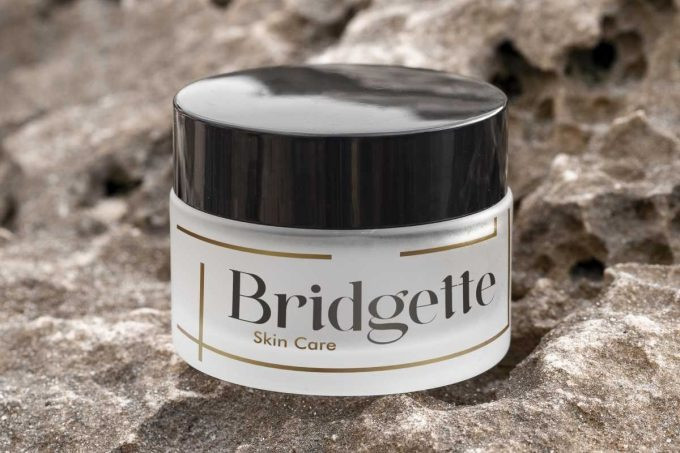
Altmar Font
Altmar Font is a stunningly authentic serif display font, designed by VinType Studio. Every character in this font has a sophisticated, modern, and luxurious feels that will make your designs will attract attention from the first glance. It will be suitable for many industries, such as fashion, beauty product, perfume, restaurant, event or wedding organizer, furniture publishing, printing, and more!
Altmar includes full set of Uppercase Basic Characters, Numerals and Punctuation. This font also has two different styles, Regular and Italic. Don’t forget to use this font to complement your design to make it extraordinary, such as cover, business card, greeting card, signage, invitation, product packaging, brand logo, label, poster, web page, quote, etc.